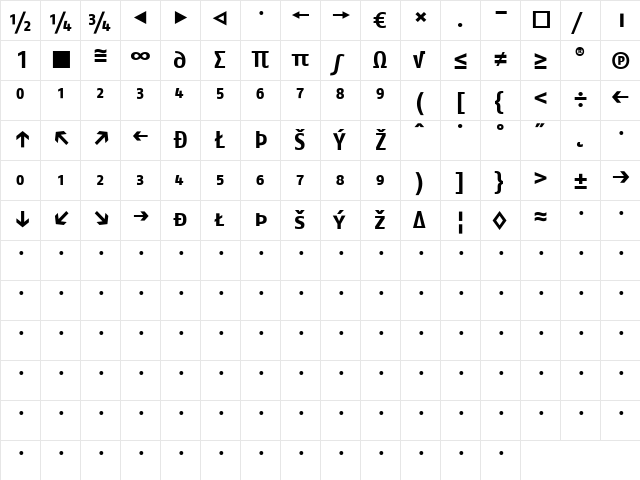
FagoNo Bold Font Preview
FagoNo Bold
FagoNo Bold Font Details
| Foundry | Ole Schaefer, . Published by FontShop International for FontFont Release Fago is a trademark of FSI Fonts and Software GmbH |
Design Context for FagoNo Typeface
FagoNo takes a measured approach to typography — its balanced proportions and neutral character make it a reliable workhorse for both digital and print work. The heavy weight commands attention and anchors typographic hierarchies.